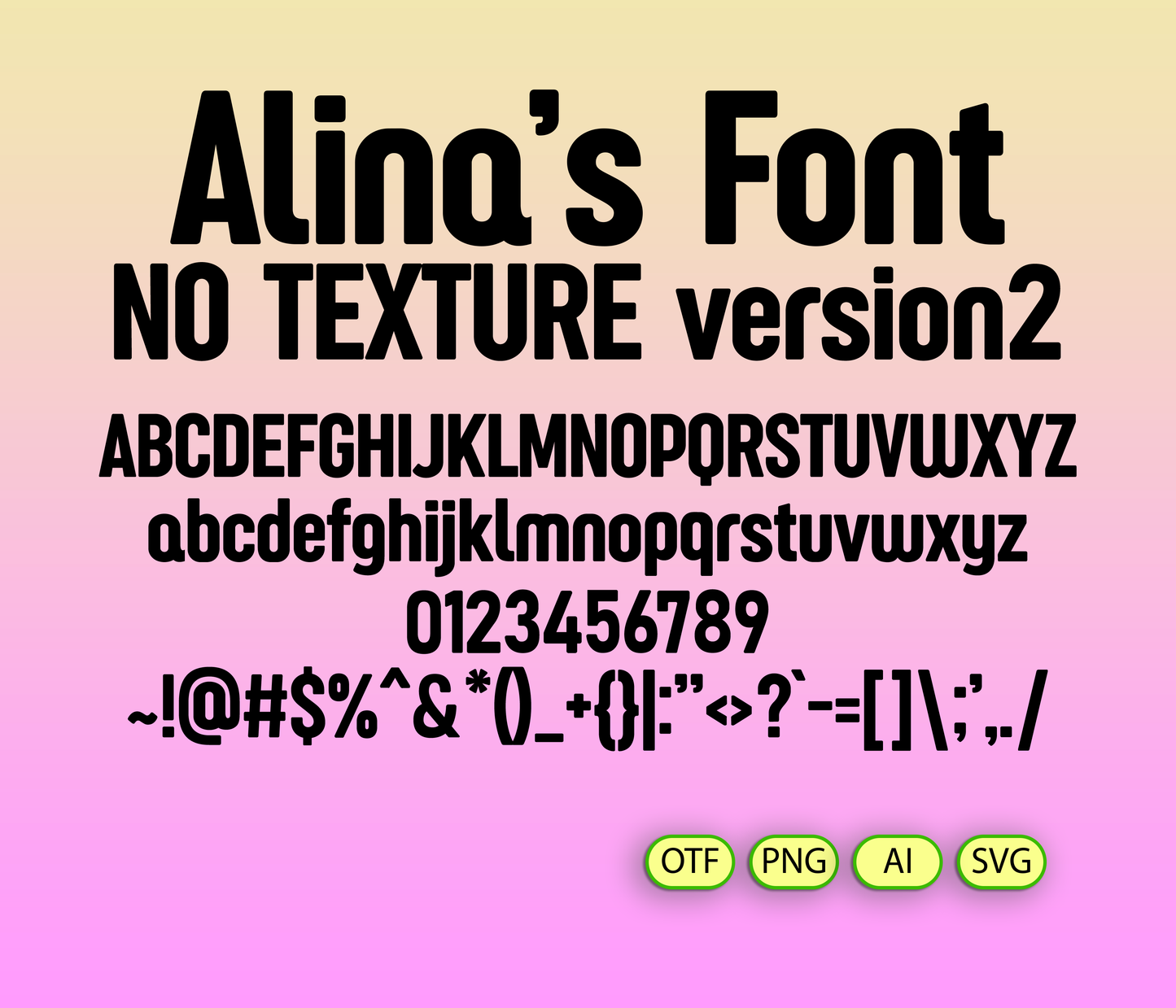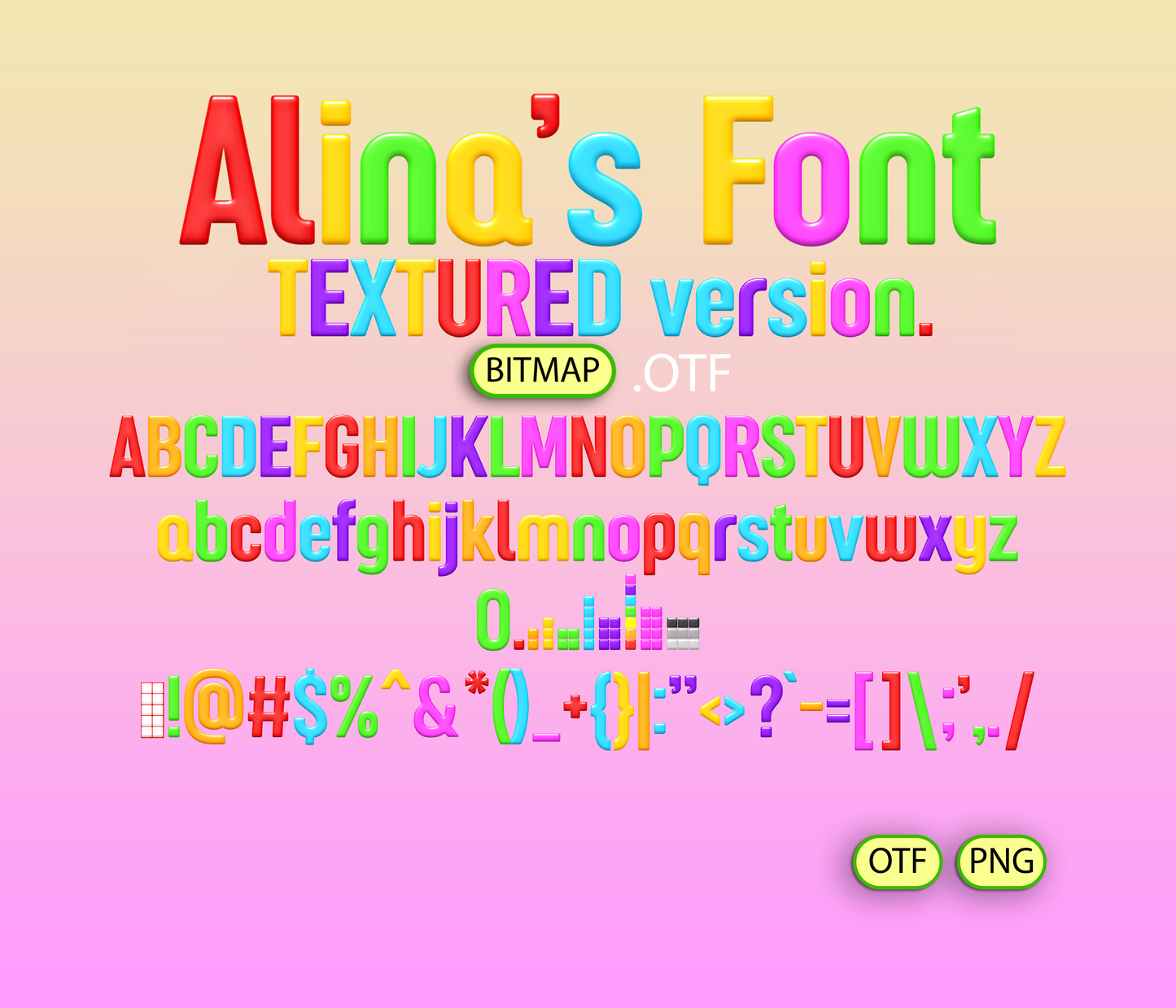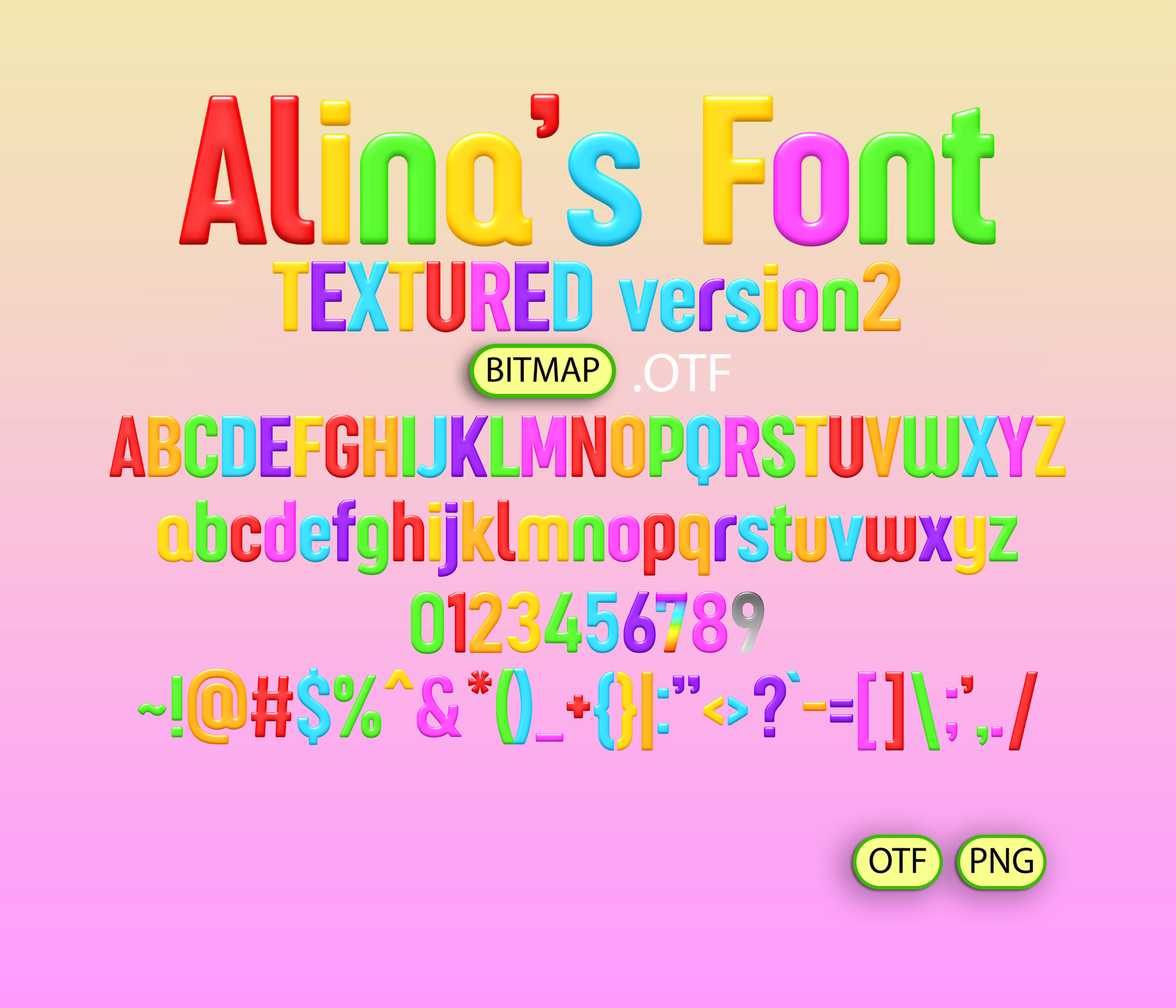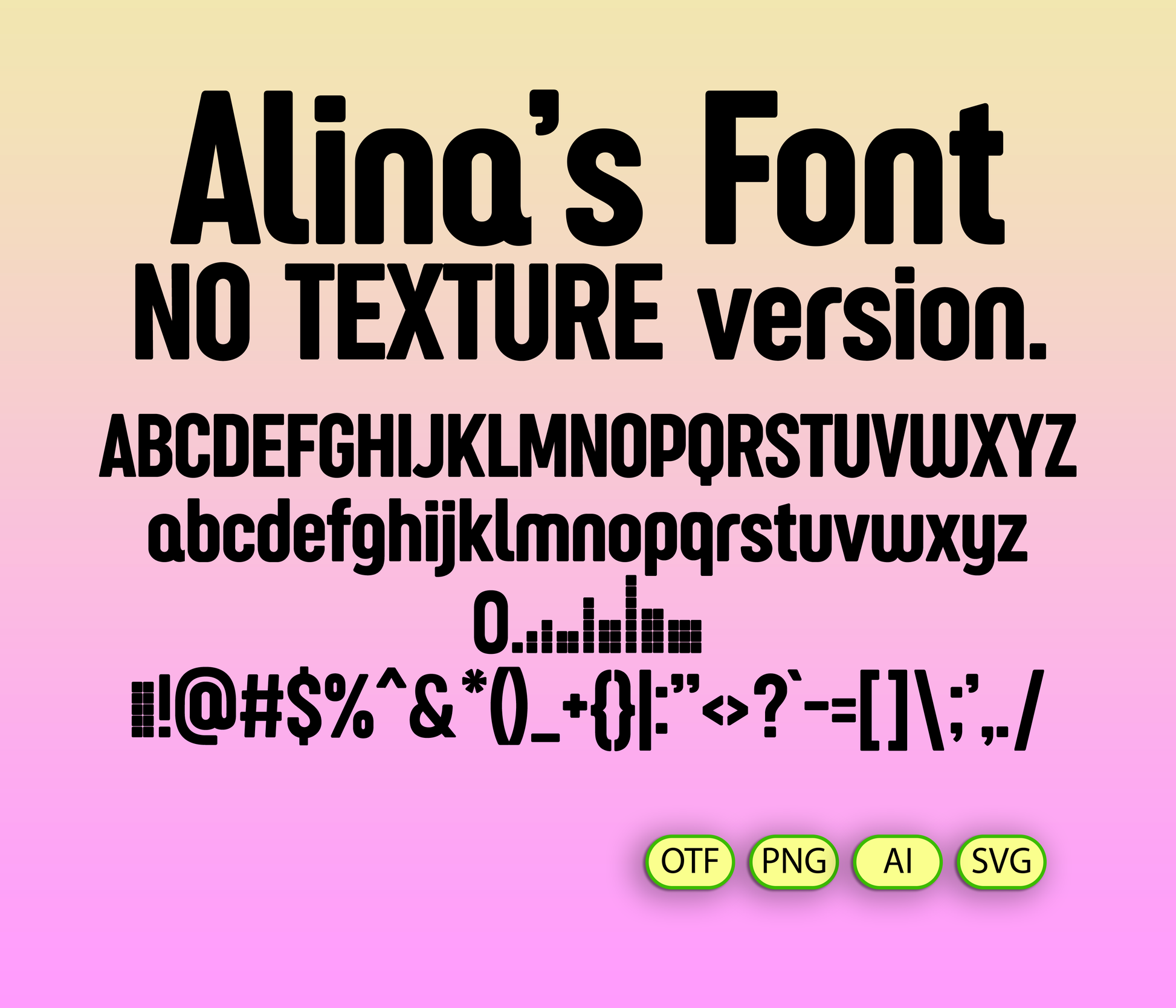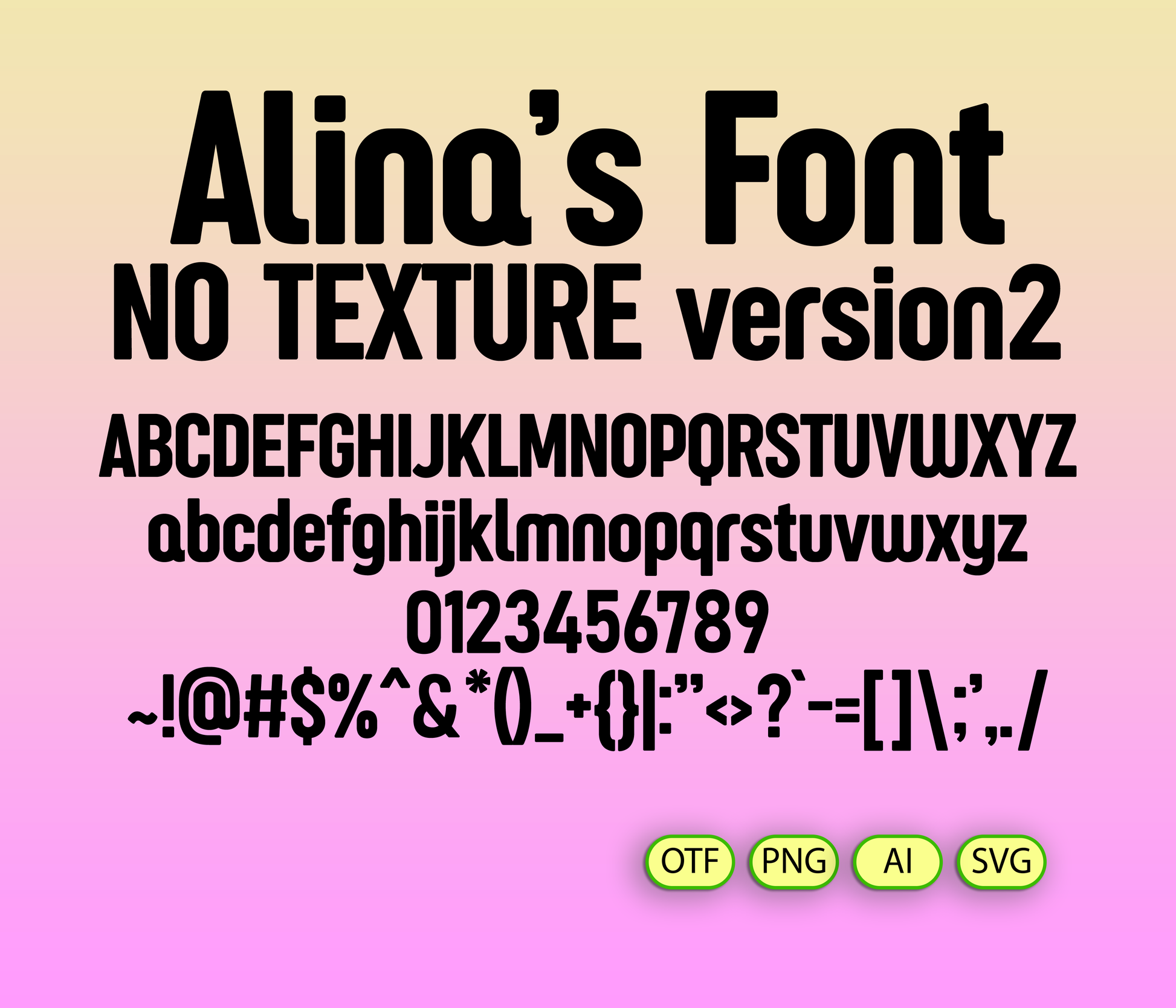
Counting Squad Font Textured
Step into the world of numerical adventure with our Counting Squad font, capturing the essence of these stackable number pals. Perfect for teachers, educational content creators, event organizers, and designers, this font brings the dynamic, playful spirit of these beloved block heroes to your projects. Create learning materials, themed merchandise, or digital content with the high-energy vibe of these mathematical companions.
Our Counting Squad font features geometric lines and playful characters reflecting the educational nature of these number-based adventurers. Ideal for:
- Educational Materials: Create engaging worksheets, posters, and learning aids that make mathematics fun and accessible for young learners.
- Classroom Design: Perfect for bulletin boards, number lines, and educational displays that need that extra touch of mathematical magic.
- Digital Content Creation: Enhance your educational websites, learning apps, and digital resources with the cheerful energy of these stacking characters.
- Themed Projects: Ideal for math-inspired designs, children's educational events, or any project that needs to convey the joy of learning numbers.
- Custom Learning Tools: Perfect for math games, educational posters, or any project requiring that blend of education and entertainment.
Our font pays tribute to the beloved mathematical characters, empowering your designs with its educational and playful spirit. Whether crafting learning materials, designing educational merchandise, or adding a dynamic touch to classroom projects, this font communicates the bold essence of these numbers. Ready to inject mathematical fun into your creations? This font is your key to exciting, impactful design.